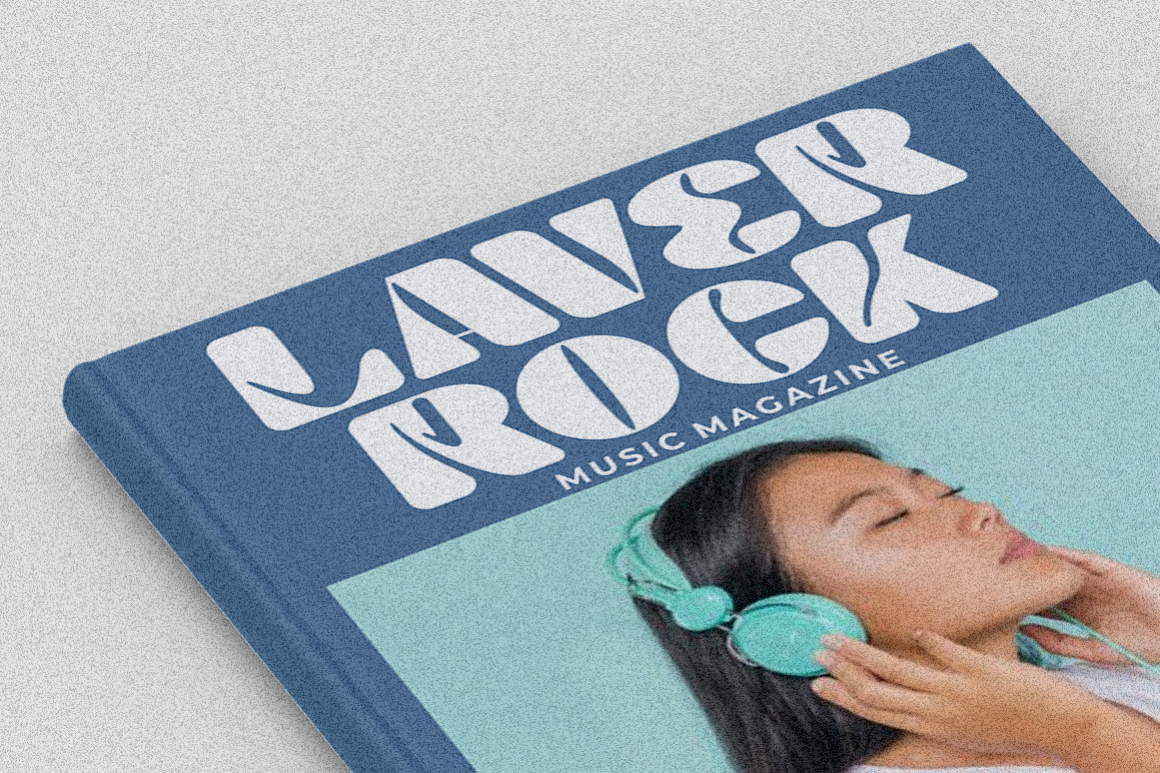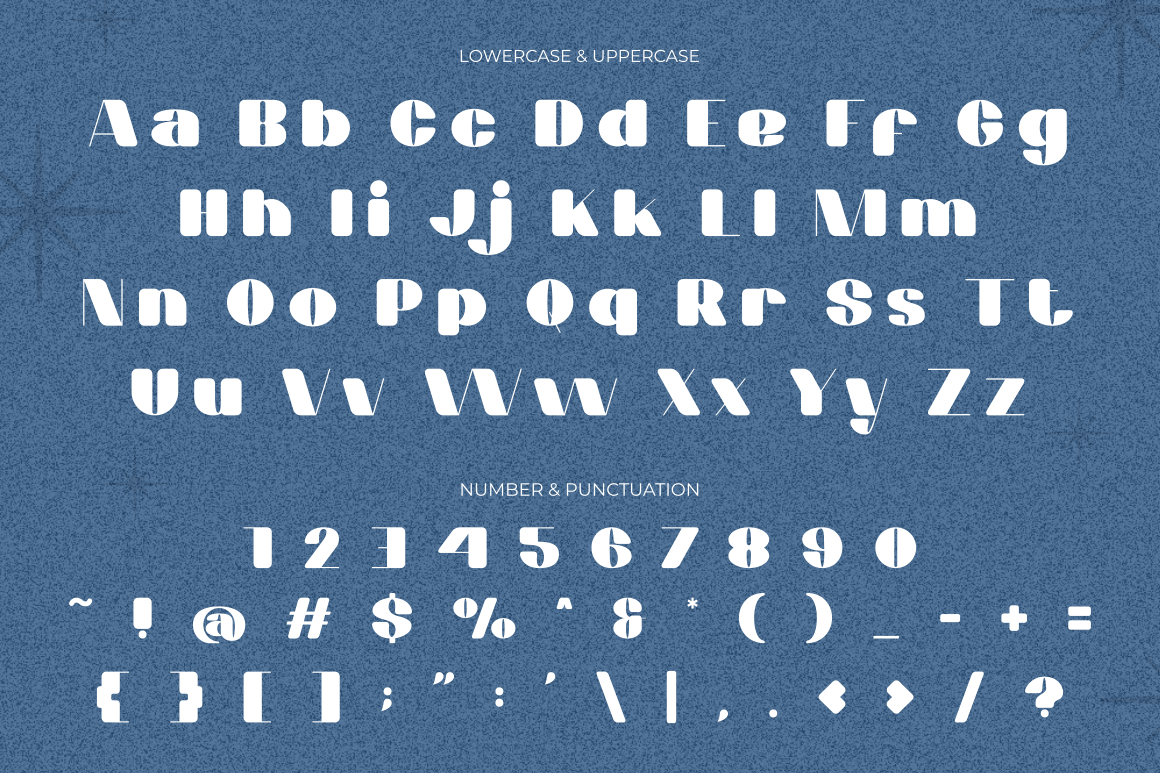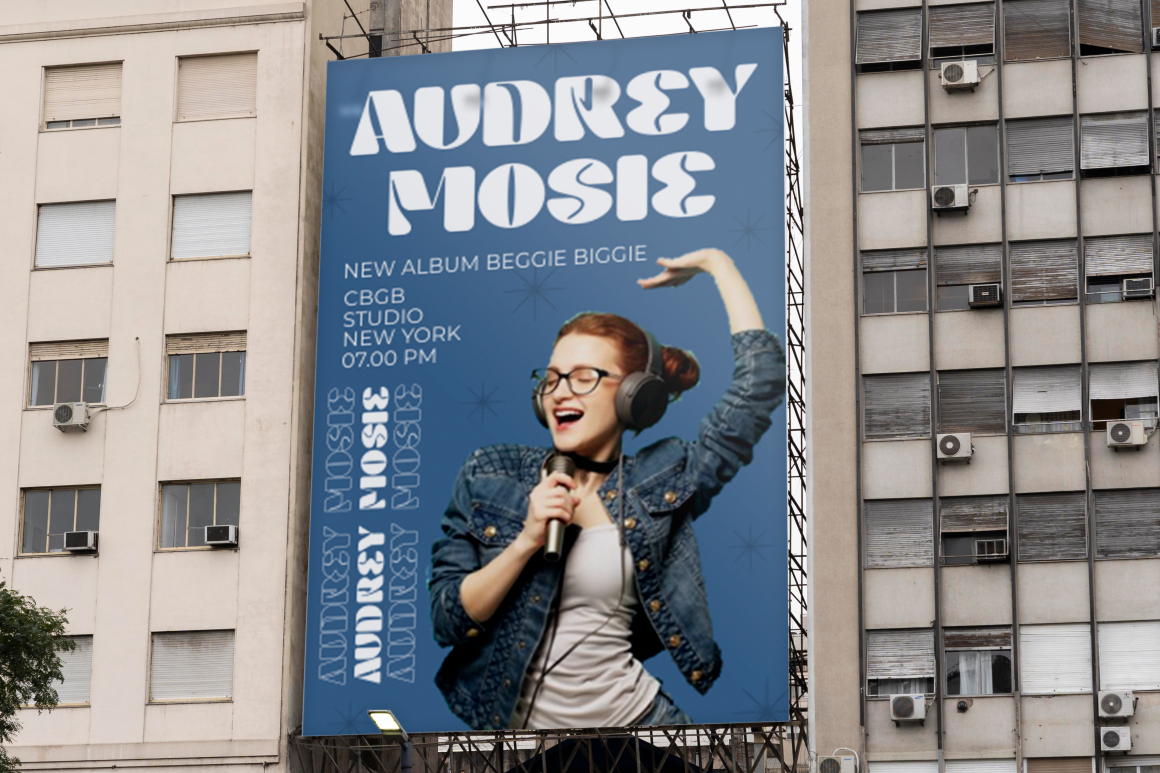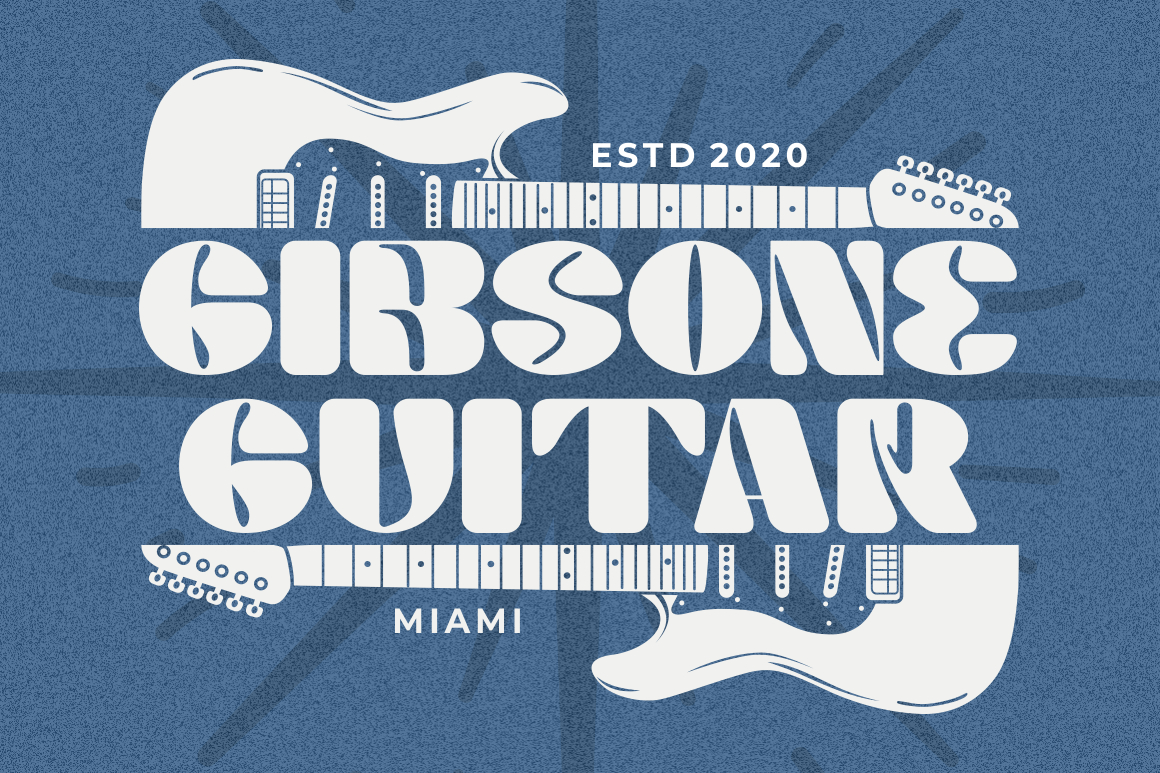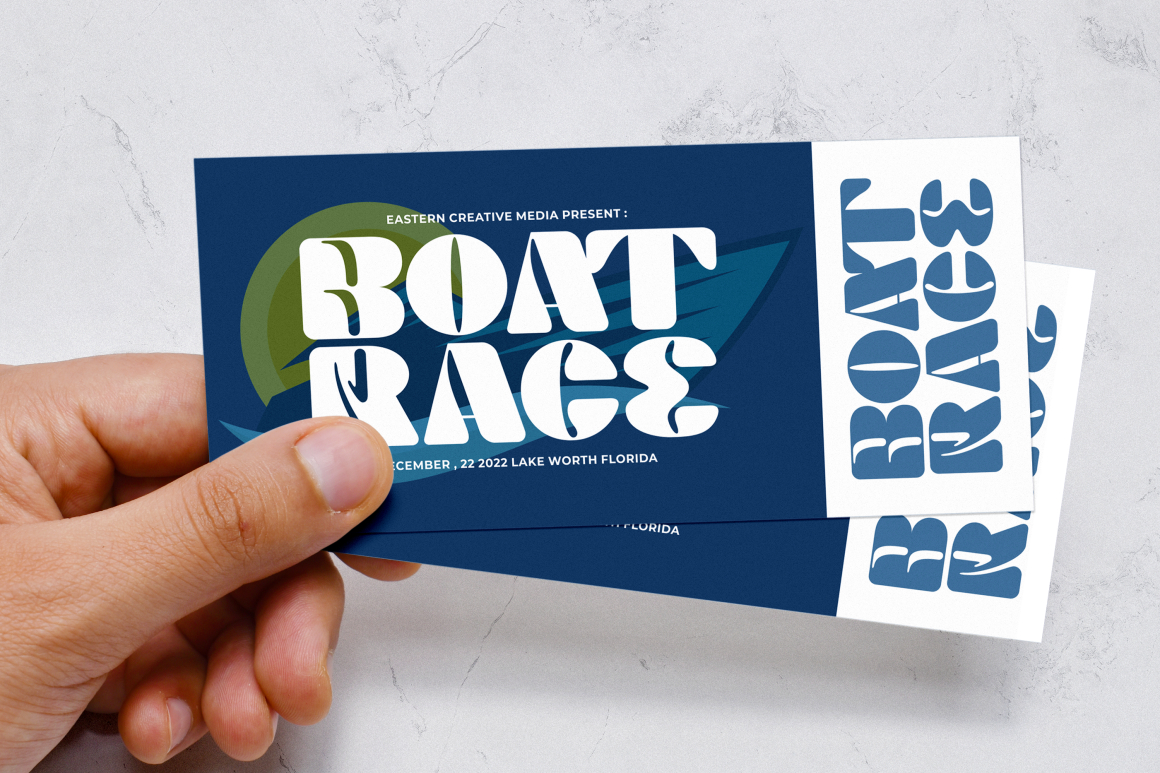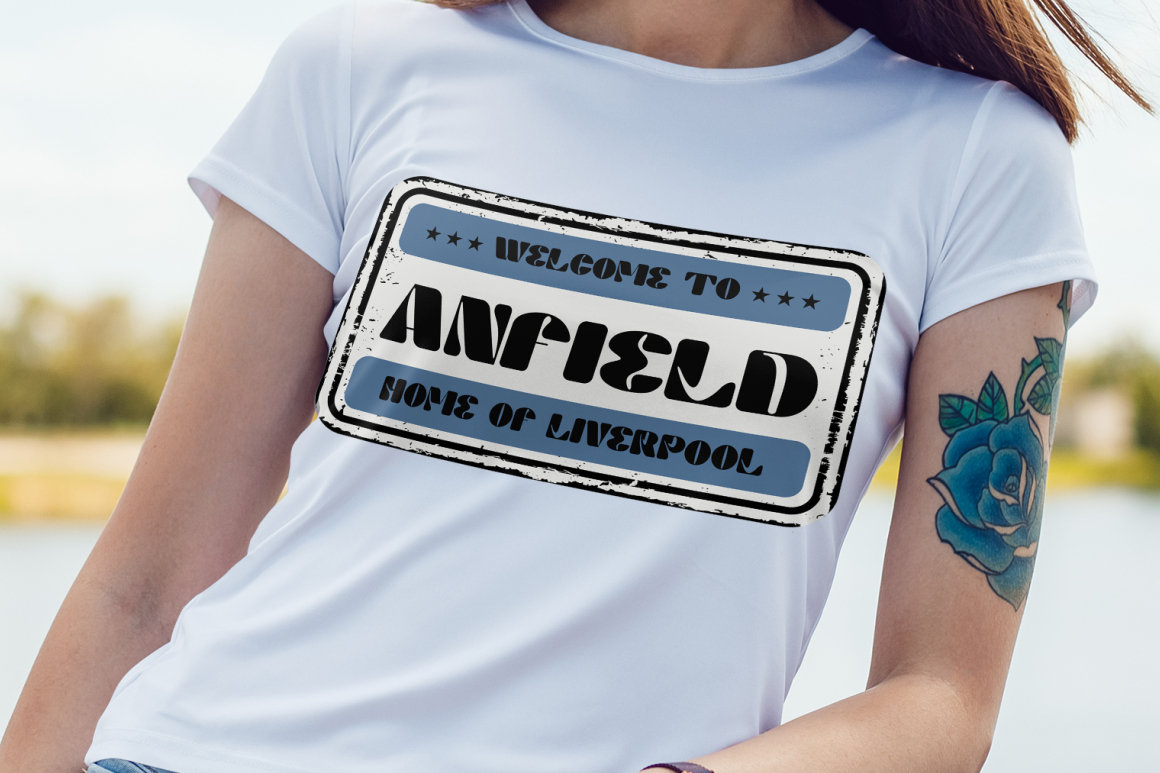
Malow – Display Font
Malow is a stunning display font that will bring elegance and sophistication to any project. This font was designed with a contemporary style that still maintains a classic look, making it perfect for a wide range of applications.
The idea behind the creation of Malow was to develop a font that combines a modern aesthetic with a touch of timeless elegance. The result is a typeface that looks fantastic on branding projects, logos, packaging designs, posters, and more.
Malow is a versatile font that can be used in a variety of design contexts, whether it’s for print or digital projects. Its clean lines and bold appearance make it an excellent choice for headlines and titles, while its legibility also makes it ideal for body text.
- Uppercase and lowercase letters
- Opentype alternates and ligatures
If you’re looking to add a touch of sophistication to your design project, then Malow is an excellent choice. Its clean lines and elegant style make it a versatile font that will elevate any design.
In summary, Malow is display font that combines modern and timeless styles, making it a great choice for design projects. Its features include multilingual support, opentype alternates and ligatures, and three file formats in the package. This font is perfect for anyone looking to add a touch of sophistication to their project.